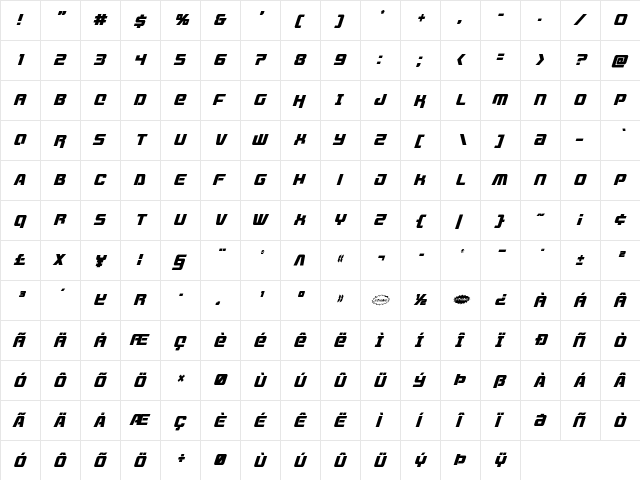
Livewired Condensed Italic Font Preview
Design Context for Livewired Condensed Italic Typeface
Livewired Condensed Italic is a composed and adaptable typeface that performs quietly and consistently across a wide range of design contexts. The slanted form adds forward momentum and visual energy. Its narrow stance lets it pack a punch even in space-constrained designs.
Pro Tip: Try Livewired Condensed Italic for annotation and caption copy alongside an upright companion — the contrast in angle creates a dynamic but ordered typographic system.